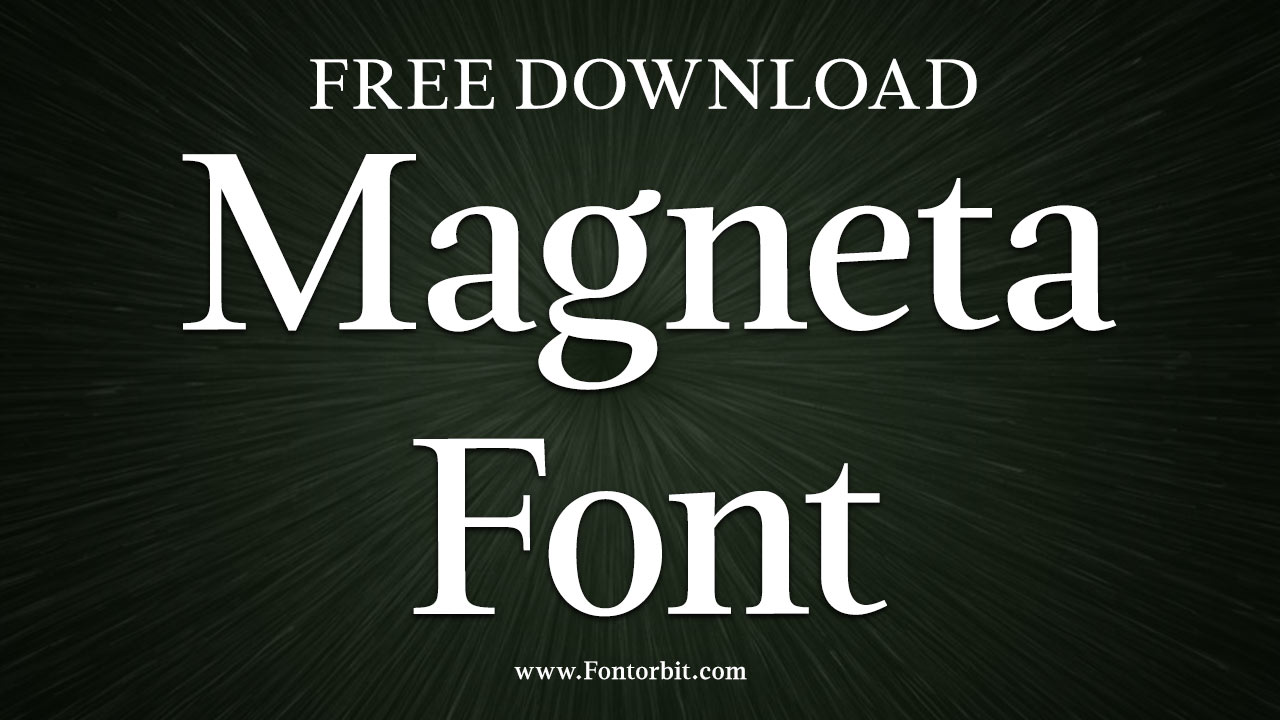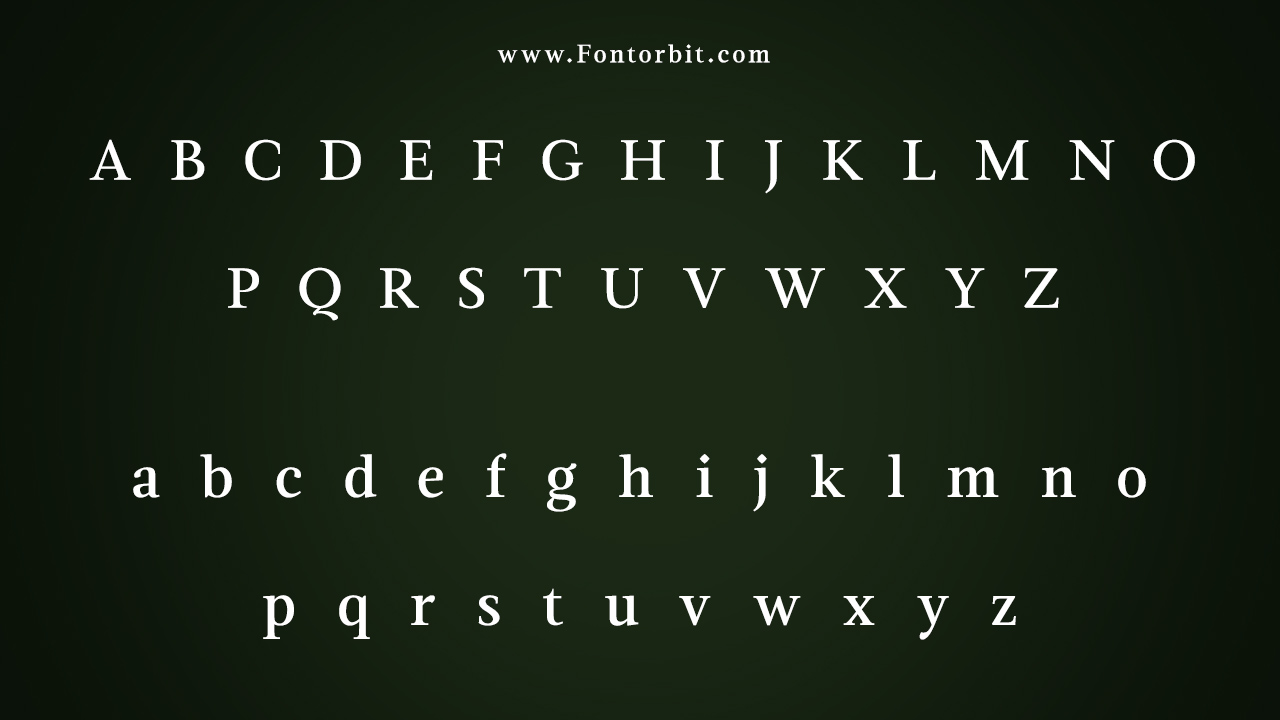
Magneta is a distinctive and stylish typeface designed by the renowned font foundry Positype. Released in 2022, this modern and sophisticated font has quickly gained popularity among designers for its unique blend of elegance and versatility.
The Magneta font family stands out with its refined character shapes and well-balanced proportions, making it a versatile choice for various applications.
Magneta Family Includes
Magneta is a sophisticated typeface that brings a contemporary flair to any project. The font family includes various weights and styles, making it suitable for various design needs.
The Magneta family comprises:
- Magneta Ornaments
- Magneta Thin
- Magneta Thin Italic
- Magneta Book
- Magneta Book Italic
- Magneta Medium
- Magneta Medium Italic
- Magneta SemiBold
- Magneta SemiBold Italic
- Magneta Bold
- Magneta Bold Italic
- Magneta Black
- Magneta Black Italic
Notable Uses Of Magneta
Magneta is ideal for branding, editorial design, and web typography. Its clean lines and balanced proportions make it a popular choice for both digital and print media, including:
- Magazine headlines
- Modern website layouts
- Stylish invitations
Magneta is perfect for applications where a sophisticated and modern touch is needed. Use it for:
- Corporate branding
- High-end marketing materials
- Elegant event invitations
Magneta is a versatile and elegant typeface that can enhance various design projects. Its multiple styles and weights make it a valuable asset for designers looking to add a modern touch to their work.
6.What Types Of Projects Is Magneta Best Suited For?
Magneta is great for branding, editorial design, and high-end marketing materials.